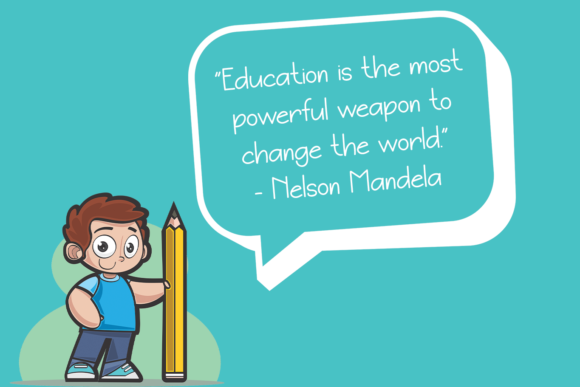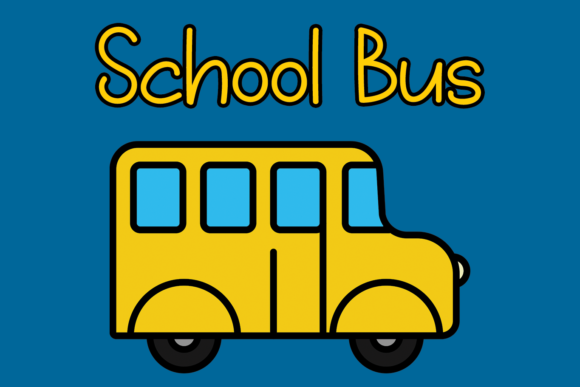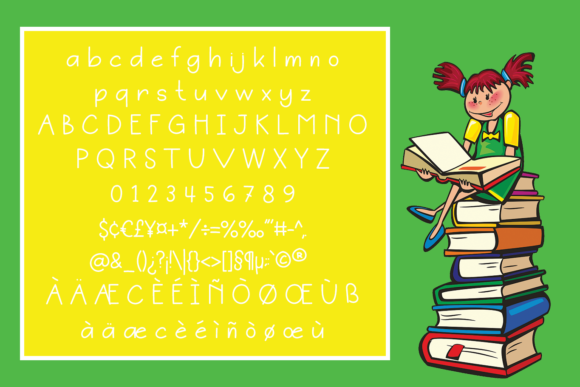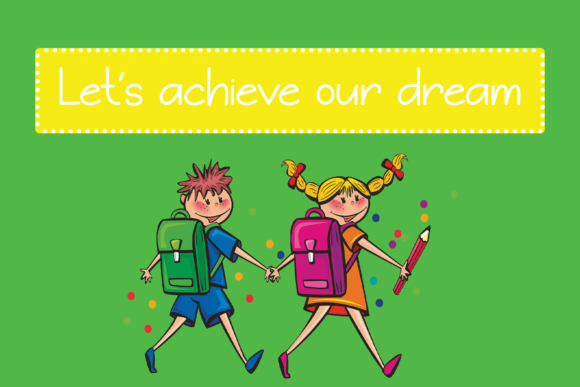
Back to School Font
About Back to School Font
Back To School is a simple and clean handwritten font. This font was particularly crafted for those who need a beautiful and refreshing look to their designs.